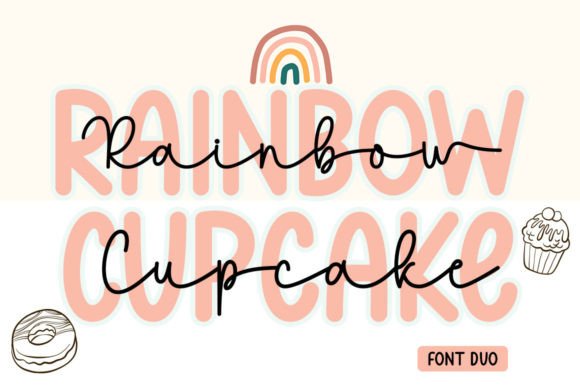
Introducing Rainbow Cupcake Duo Font, the ultimate choice for adding a touch of elegance and romance to your creative projects. Created by DN Creative, this stylish and delicate duo font is perfect for a wide range of applications, from greeting cards to captivating headlines.
With Rainbow Cupcake Duo Font, you can effortlessly elevate the aesthetics of your designs, making them truly captivating and memorable. Whether you're working on a wedding album, a love-themed project, or simply want to add a romantic flair to your work, this font is your go-to solution.
What sets Rainbow Cupcake Duo Font apart is its versatility. It combines the charm of a sans serif font with the elegance of a script font, offering you endless possibilities to craft stunning designs. The seamless blend of these two font styles ensures that every stroke and curve exudes sophistication and grace.
One of the key features of Rainbow Cupcake Duo Font is its PUA encoding. This means that you can easily access all the intricate glyphs and exquisite swashes included in the font. These additional elements allow you to add a unique and personalized touch to your designs, making them stand out from the crowd.
Capture the hearts of your audience with Rainbow Cupcake Duo Font. Its soft and enchanting style will evoke emotions and create a lasting impression. Whether you're designing invitations, branding materials, or social media graphics, this font will effortlessly convey the essence of love and romance.
Don't settle for ordinary fonts when you can have the best font for your wedding album and beyond. Rainbow Cupcake Duo Font will empower you to create visually stunning and emotionally captivating designs that leave a lasting impact. Let your creativity soar with this extraordinary font and unlock a world of endless possibilities.